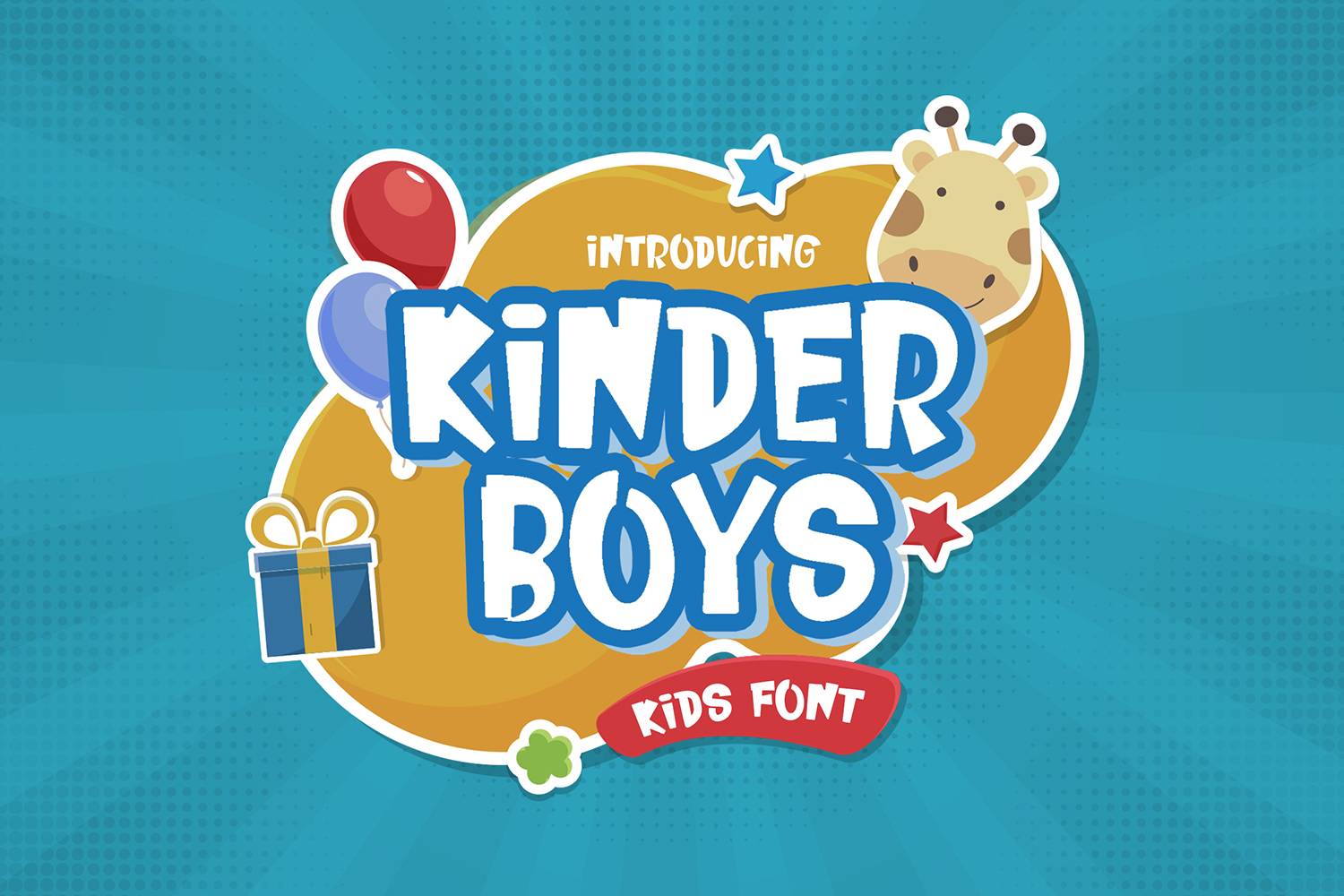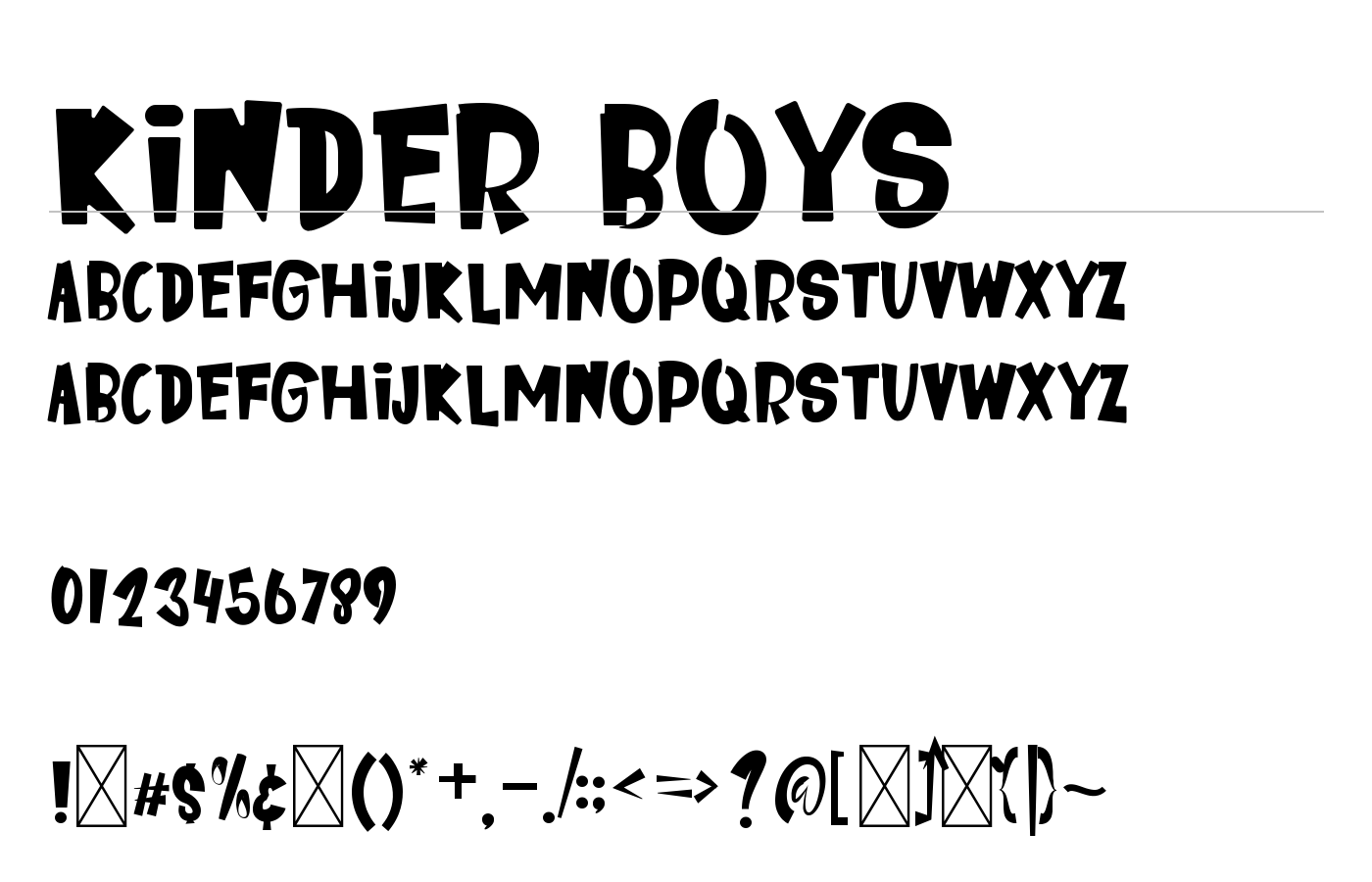
Kinder Boys is a playful, bold sans serif font with uneven, chunky letterforms that bring a fun, childlike energy. Its quirky irregular shapes and slightly condensed style make it perfect for vibrant branding, children’s books, or casual posters that want to feel friendly and approachable. This font works best in headlines or logos where personality and a whimsical touch are key.
Kinder Boys Font
About Kinder Boys Font
| Font family | Kinder Boys Font |
| Designer | StringLabs |